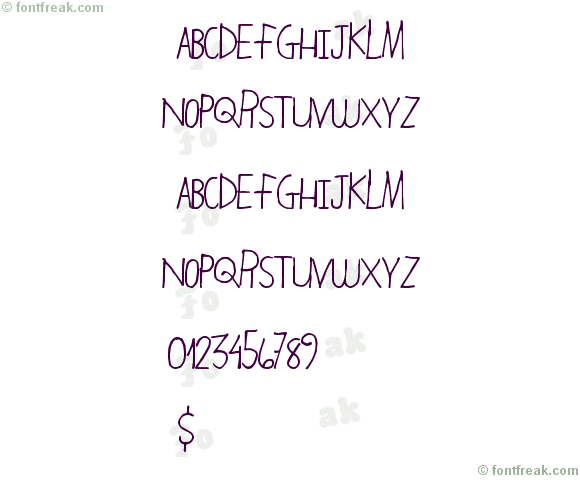
HandingOver
The HandingOver font by XEROGRAPHER FONTS is a delightful handwritten typeface that captures the essence of casual elegance. Released in 2013, this font is categorized as a script style, characterized by its playful yet sophisticated strokes. The font features a medium stroke weight that balances softness with readability, making it a versatile choice for various design projects. The organic flow of the letters showcases a natural rhythm, with slightly varied spacing that enhances its handwritten appeal.
HandingOver’s visual characteristics include charming, slightly exaggerated ascenders and descenders that lend a whimsical touch. The font's subtle flourishes and loops add character without overwhelming the text, making it ideal for creative applications. This typeface is particularly well-suited for wedding invitations, where its romantic flair can convey heartfelt messages. Additionally, it works beautifully for restaurant menus, where a personal touch can elevate the dining experience. Graphic designers may find it perfect for crafting unique branding materials, such as logos or promotional posters, while content creators can utilize it in social media graphics to foster engagement.